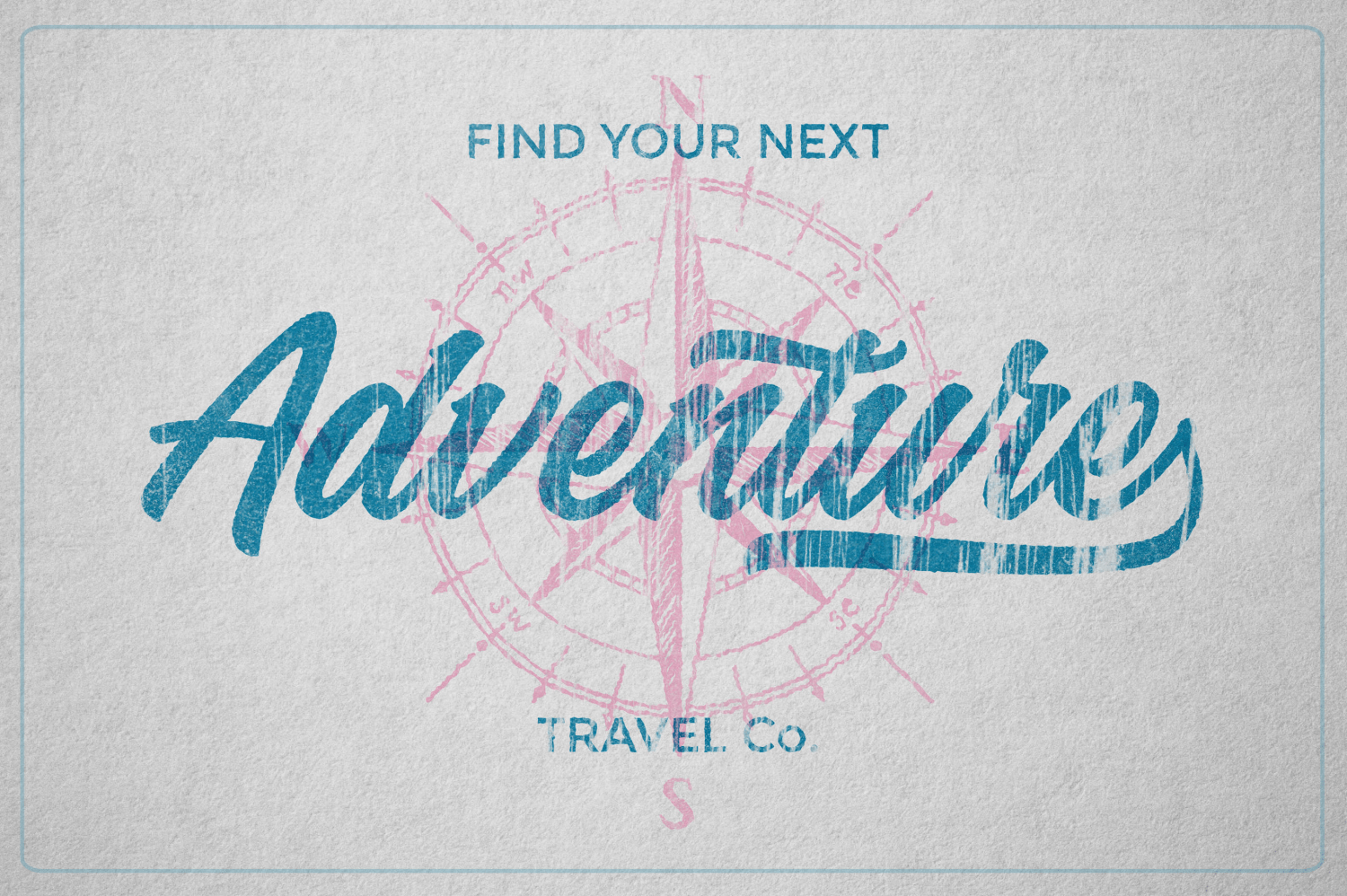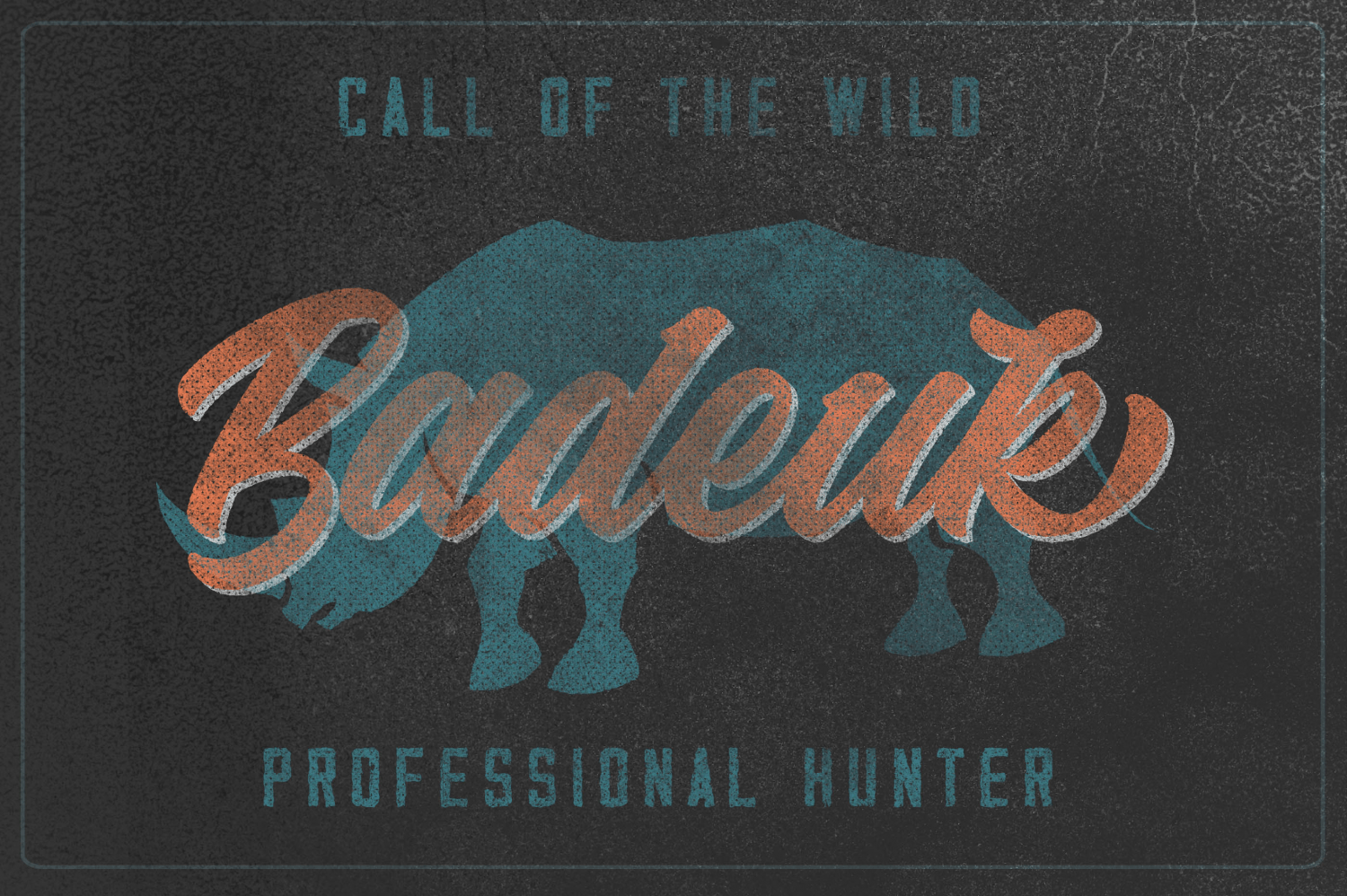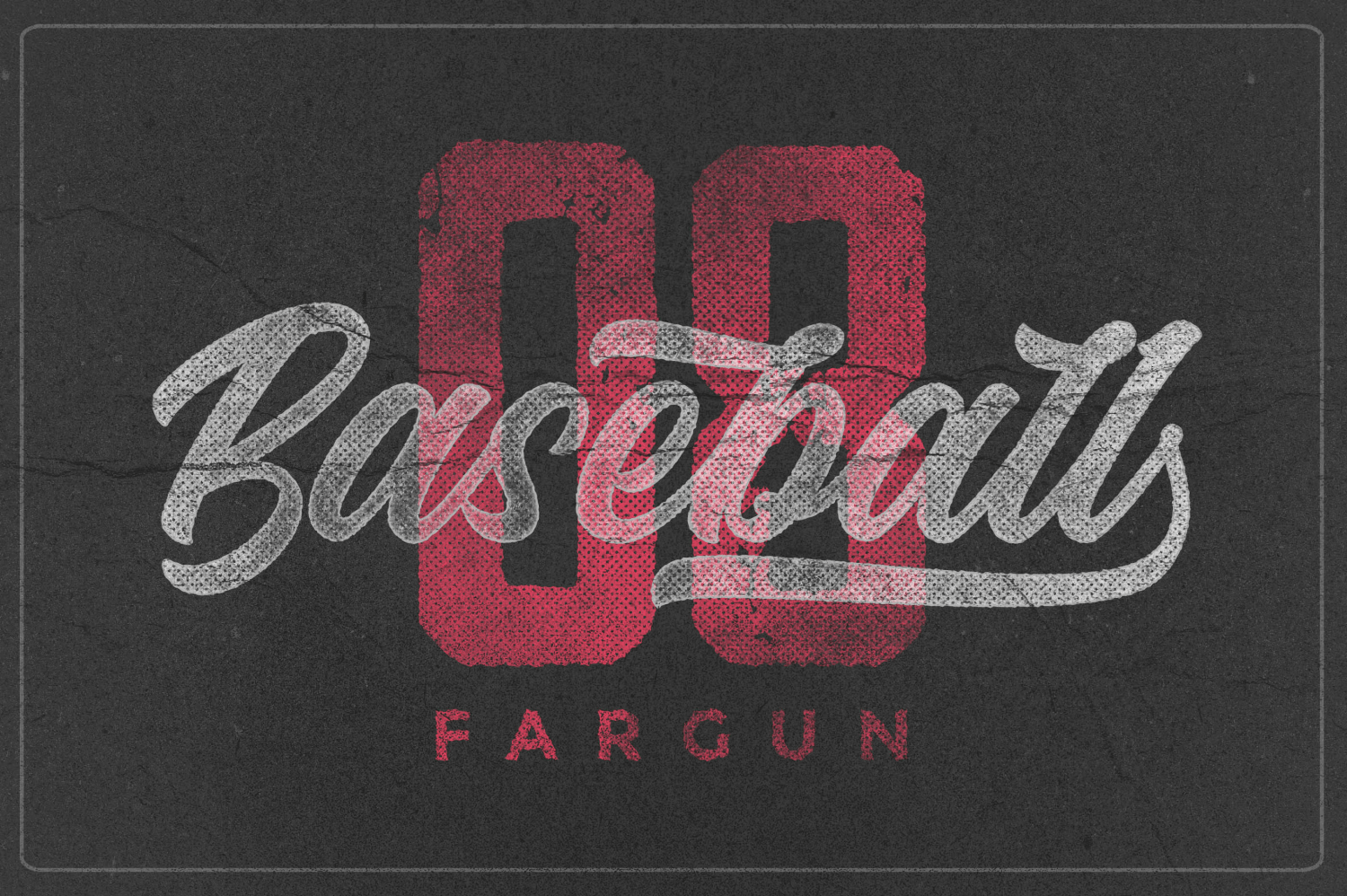
About Quicken
Quicken was inspired by the spirit of the past, when manual labor was common, and technology was just beginning to develop. Retro style and combination with Hand Lettering style, specially for traditional typography lovers and anyone who want to add natural…